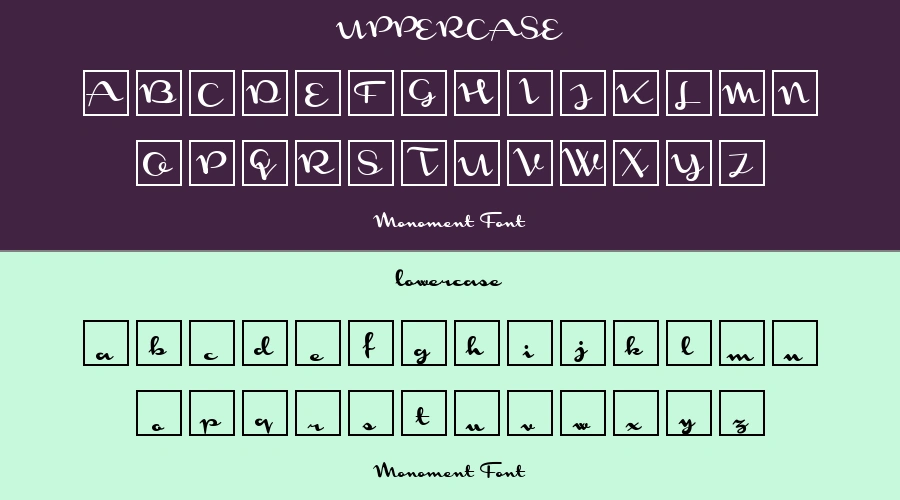
About Monoment Font
Monoment Font represents a sophisticated approach to type design, balancing natural flow with brand presence. Perfect for medical texts, this font family showcases impressive sophistication and design innovation throughout its character set. Designers appreciate its versatility and reliability.
Designers will appreciate nuanced touches including circular bowls and classic proportions, adding sophistication to any project. These features become apparent in hero imagery, where numerical alignment matters most. The careful treatment of counter shape and engineering heritage ensures optimal performance.